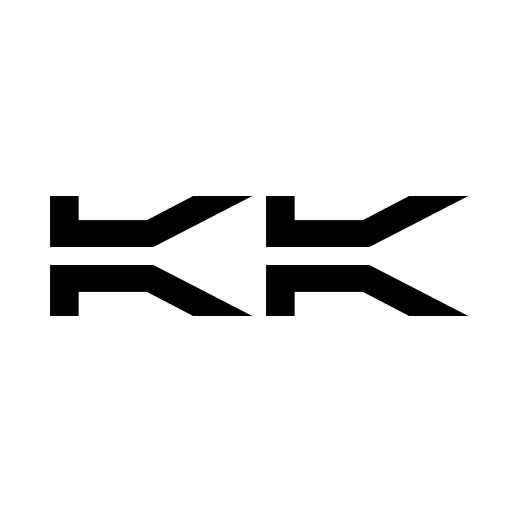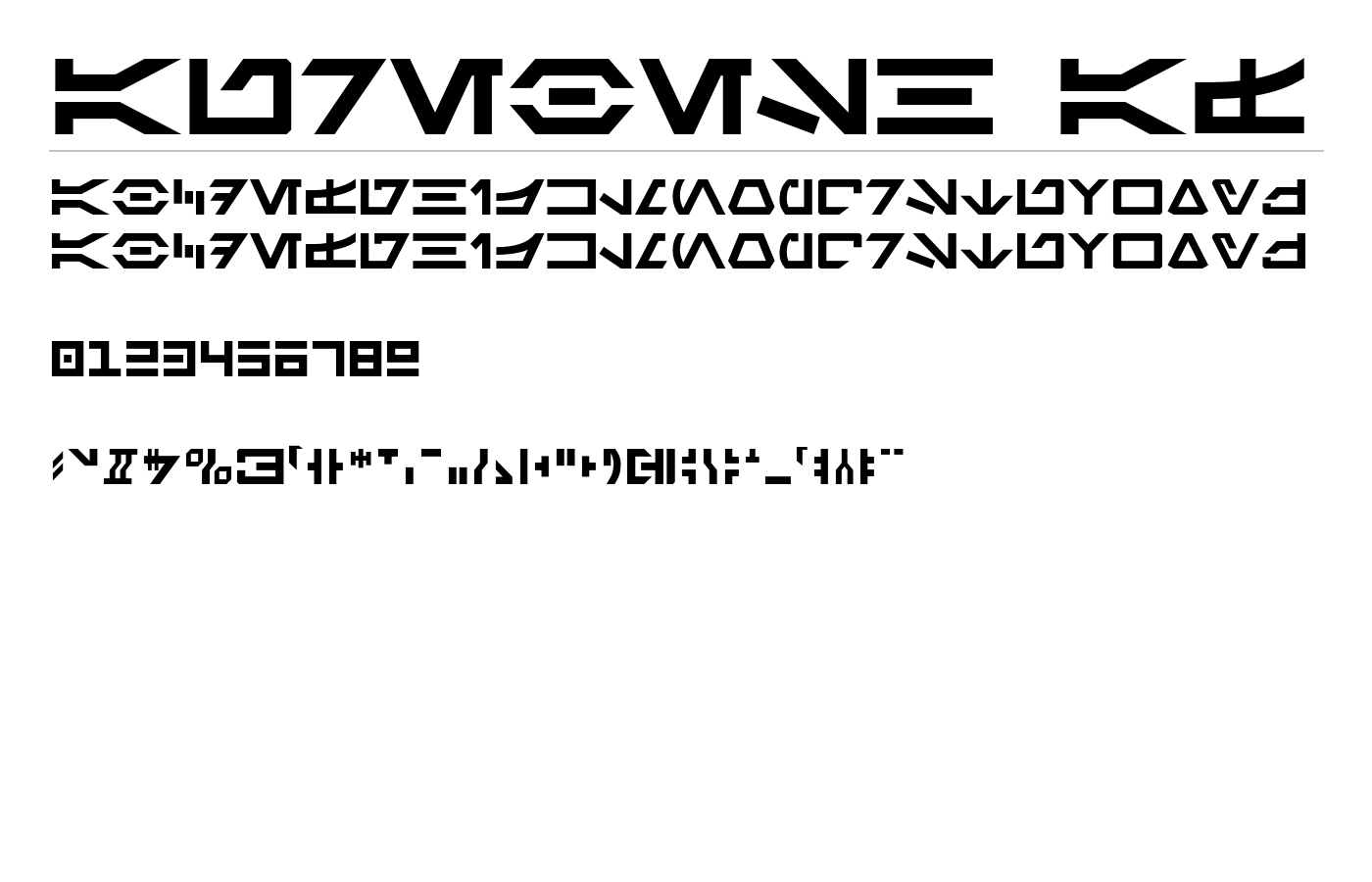
Aurebesh AF is a futuristic, geometric sans serif font with a bold weight and condensed width that gives it a strong, compact presence. Its high-tech, alien-inspired letterforms feature sharp angles and horizontal strokes, creating an otherworldly style perfect for sci-fi branding, digital interfaces, or themed designs aiming to evoke a space-age or cyber aesthetic. This font works best in headlines, logos, or decorative text where its unique shapes can stand out and capture attention.
Aurebesh AF Font
About Aurebesh AF Font